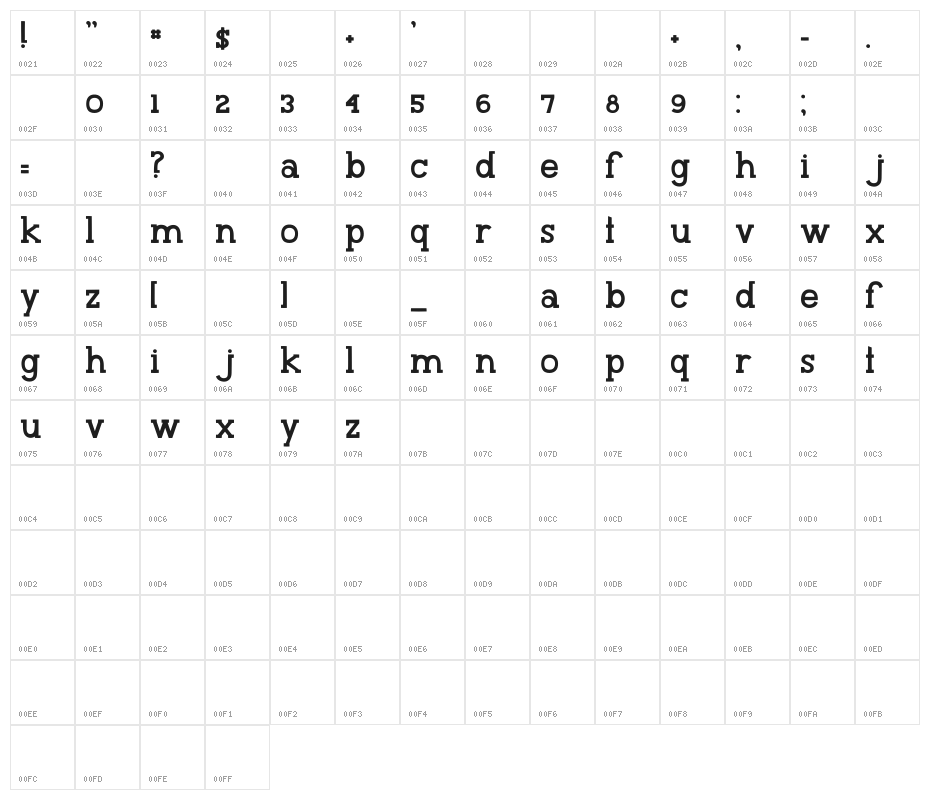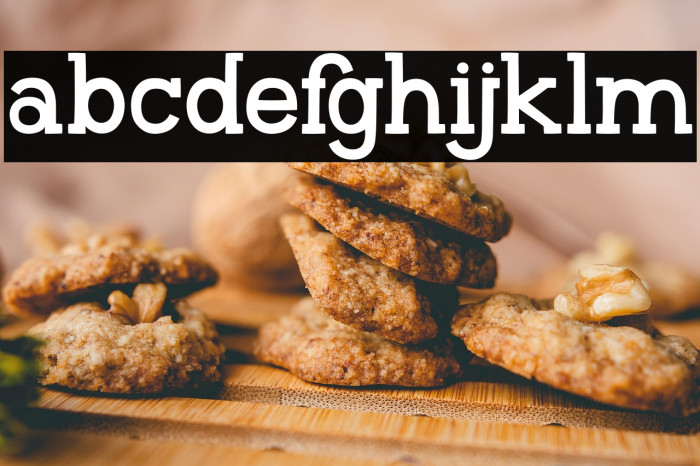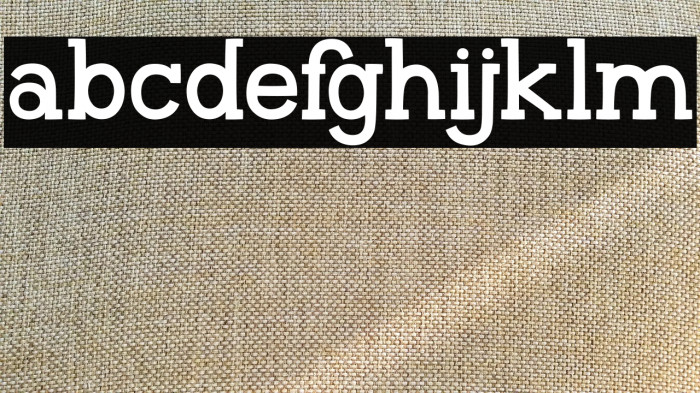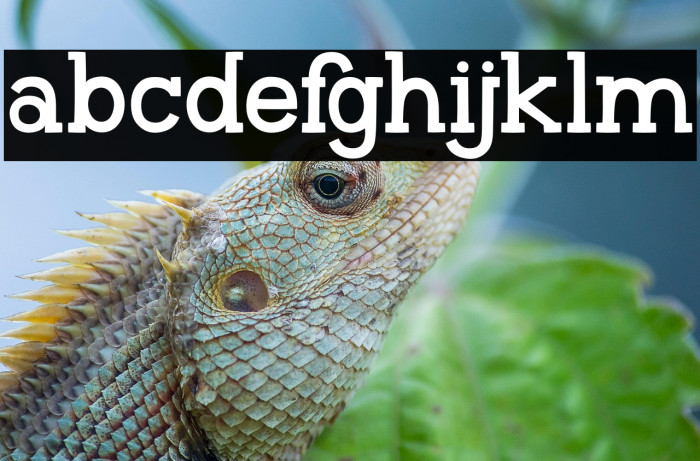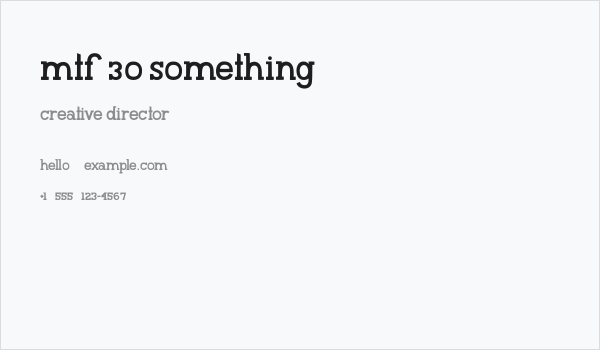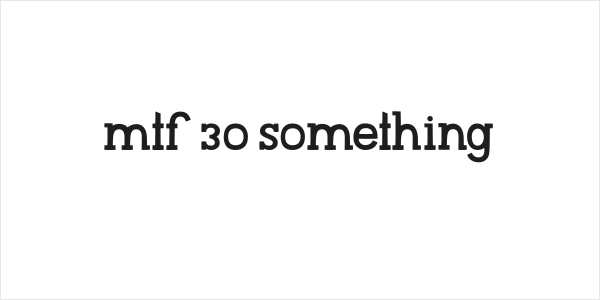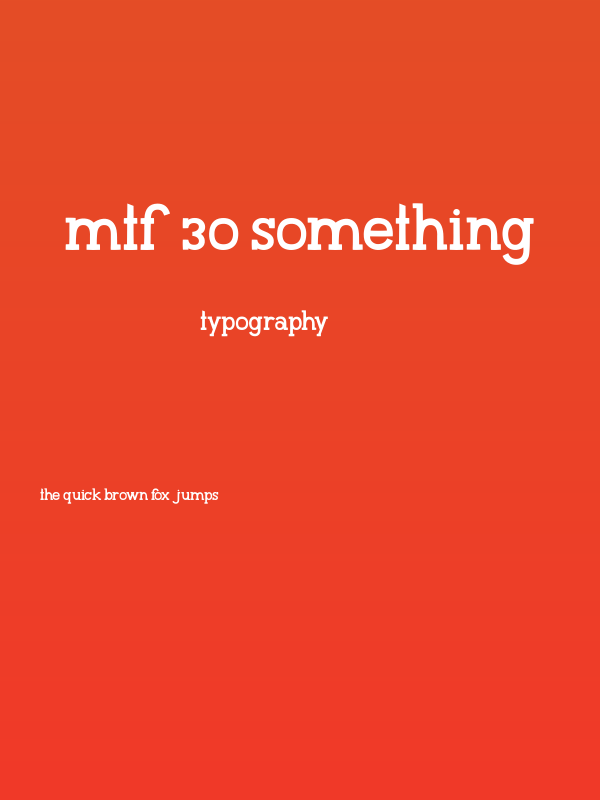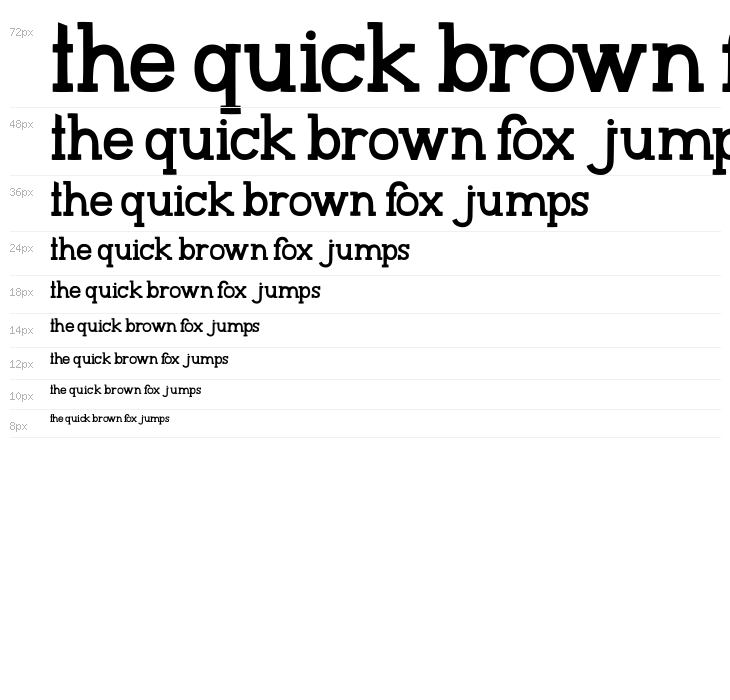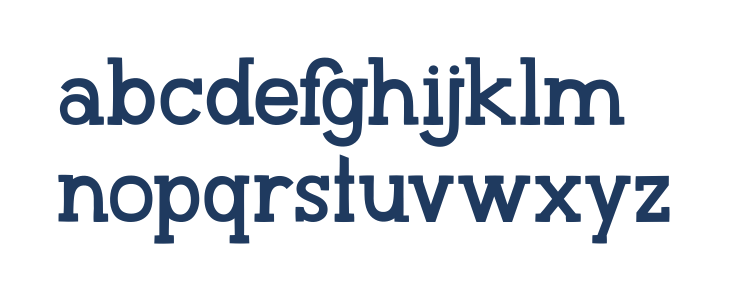
MTF 30 Something Font
MTF 30 Something Description
This font features a bold and playful design with a distinctly rounded and thick appearance. The characters are well-defined with a consistent stroke width, giving it a strong and confident look. The rounded edges and smooth curves add a friendly and approachable feel, making it suitable for a variety of creative projects. The numerals and special characters maintain the same bold style, ensuring uniformity across all text elements. Its unique style makes it stand out, while still being legible and versatile.
| Overall Style | Playful, Modern |
| Proposed Projects | Ideal for children's books, playful branding, posters, and creative advertising. |